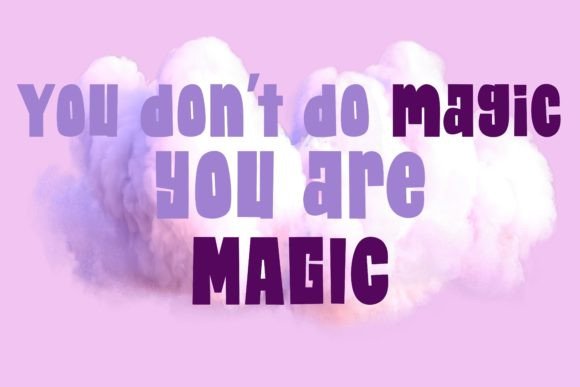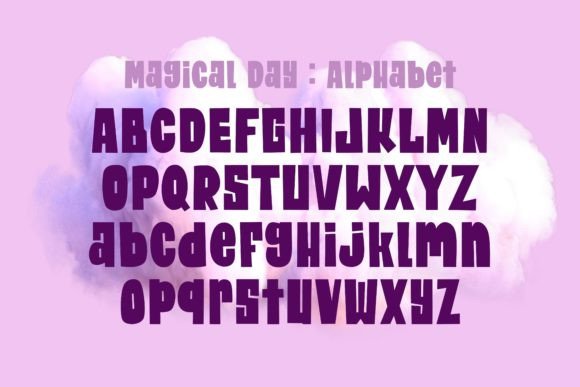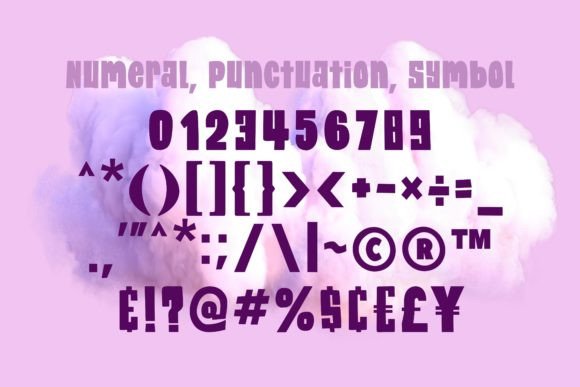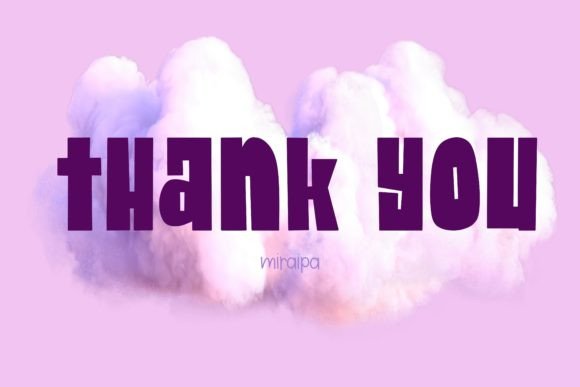
Introduction to Magical Day Font
Magical Day is a fun and playful sans serif display font.
Cute and bubbly, this chunky font is perfect for brighten up your designs .
Key Features of Magical Day Font
Why Choose Magical Day Font?